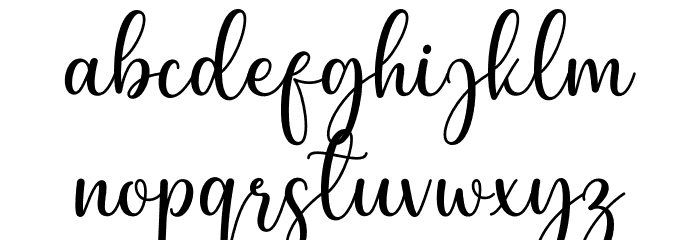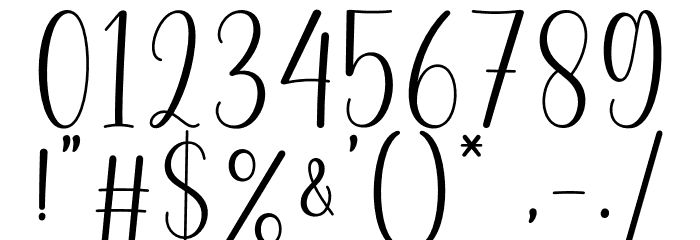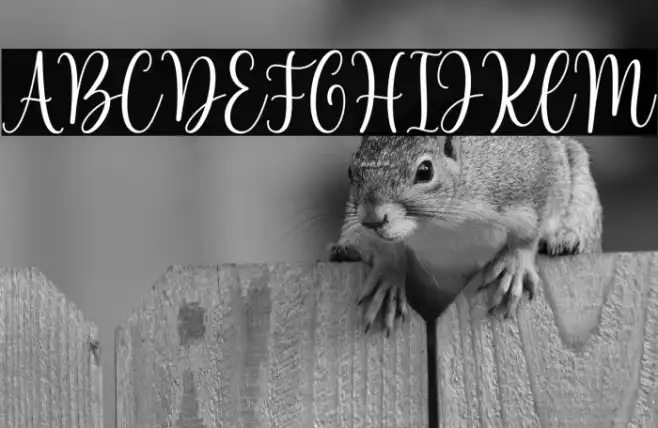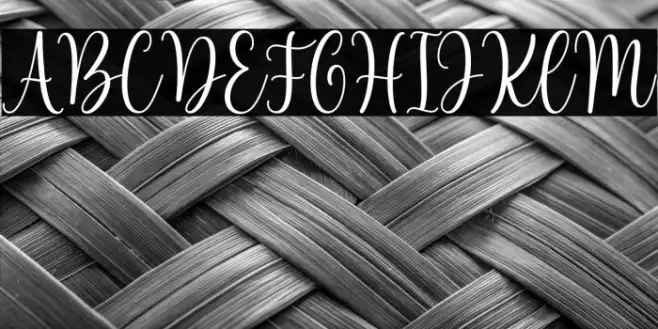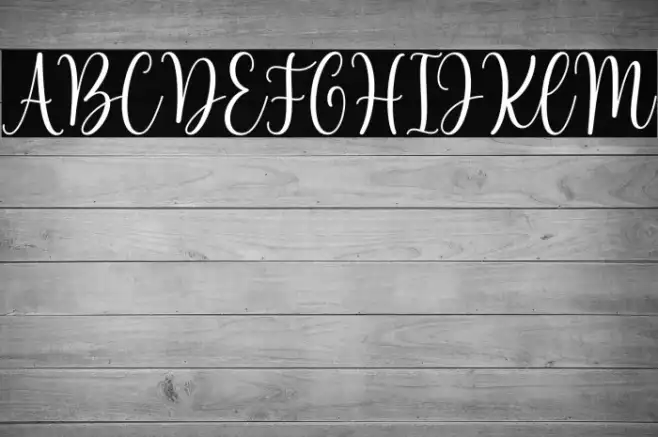
Delicious Font
This font features an elegant, flowing script style with a handwritten appearance. The uppercase letters are tall and slender, with graceful curves and loops that give them a sophisticated look. The lowercase letters maintain a consistent style, with smooth connections between characters, enhancing the cursive effect. Numbers are designed with a similar flair, incorporating slight variations in stroke thickness that add to the font's charm. Special characters are seamlessly integrated, maintaining the overall aesthetic. This font exudes a sense of elegance and creativity, making it suitable for a variety of design projects.
An elegant, flowing script font with a handwritten appearance.
- Font: Delicious
- Proposed Projects: Ideal for wedding invitations, greeting cards, branding, and logo design.
- Category: Script
- Overall Style: Elegant, Creative
- Use Case: Logos, Invitations, Decorative text